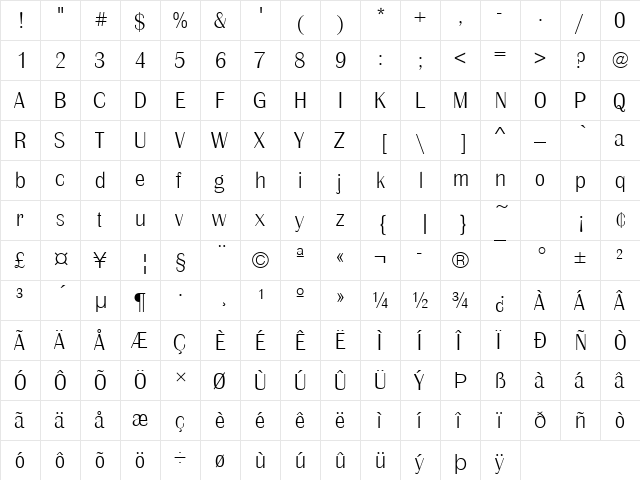
BritannicDExtLig Regular
Design Context for BritannicDExtLig Typeface
BritannicDExtLig is a composed and adaptable typeface that performs quietly and consistently across a wide range of design contexts.